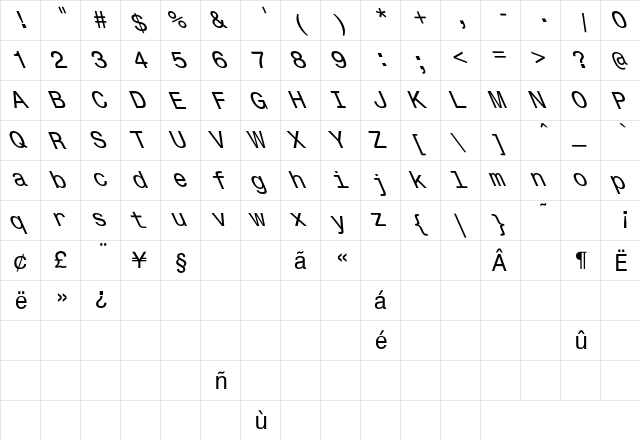
Monospace Lefty Regular
Design Context for Monospace Lefty Typeface
Monospace Lefty brings the precise, column-aligned rhythm of monospaced typography to designs that value technical clarity and systematic order.
Pro Tip: Pair Monospace Lefty with a proportional sans for UI contexts where code-style labels and regular body copy need to coexist.